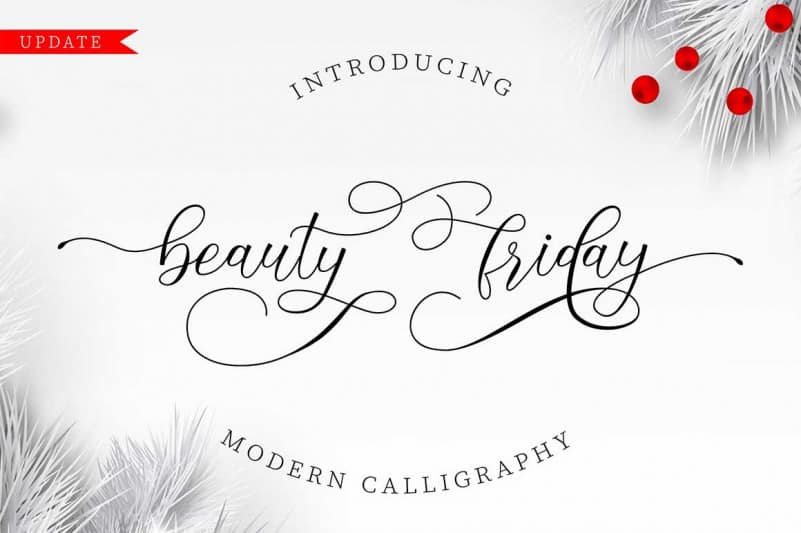
Beauty Friday Calligraphy Font
Beauty Friday Calligraphy Font includes full set of lovely uppercase and lowercase letters, multilingual symbols, numerals, punctuation and ending lowercase swashes. is perfect fo you up coming projects. such as modern invitation design, branding stationery design, wedding, birthday, etc and any projects.